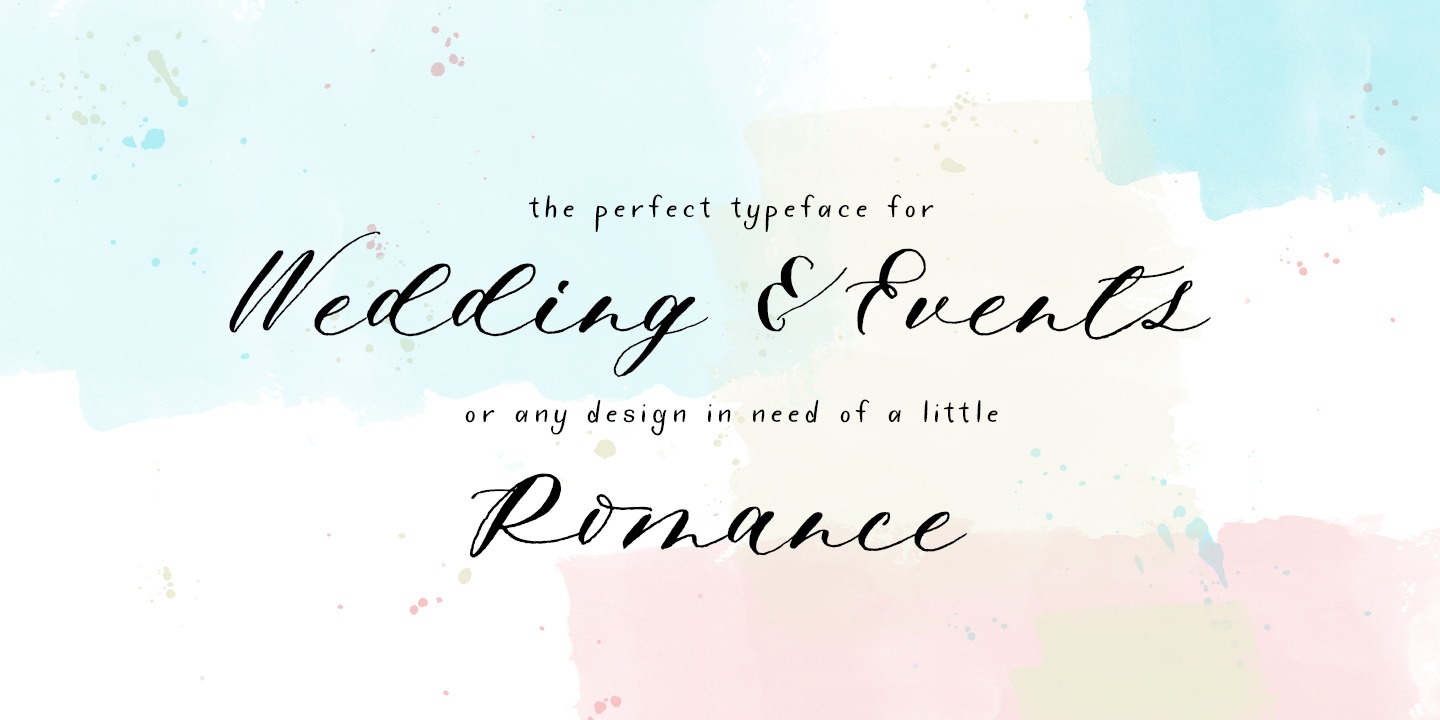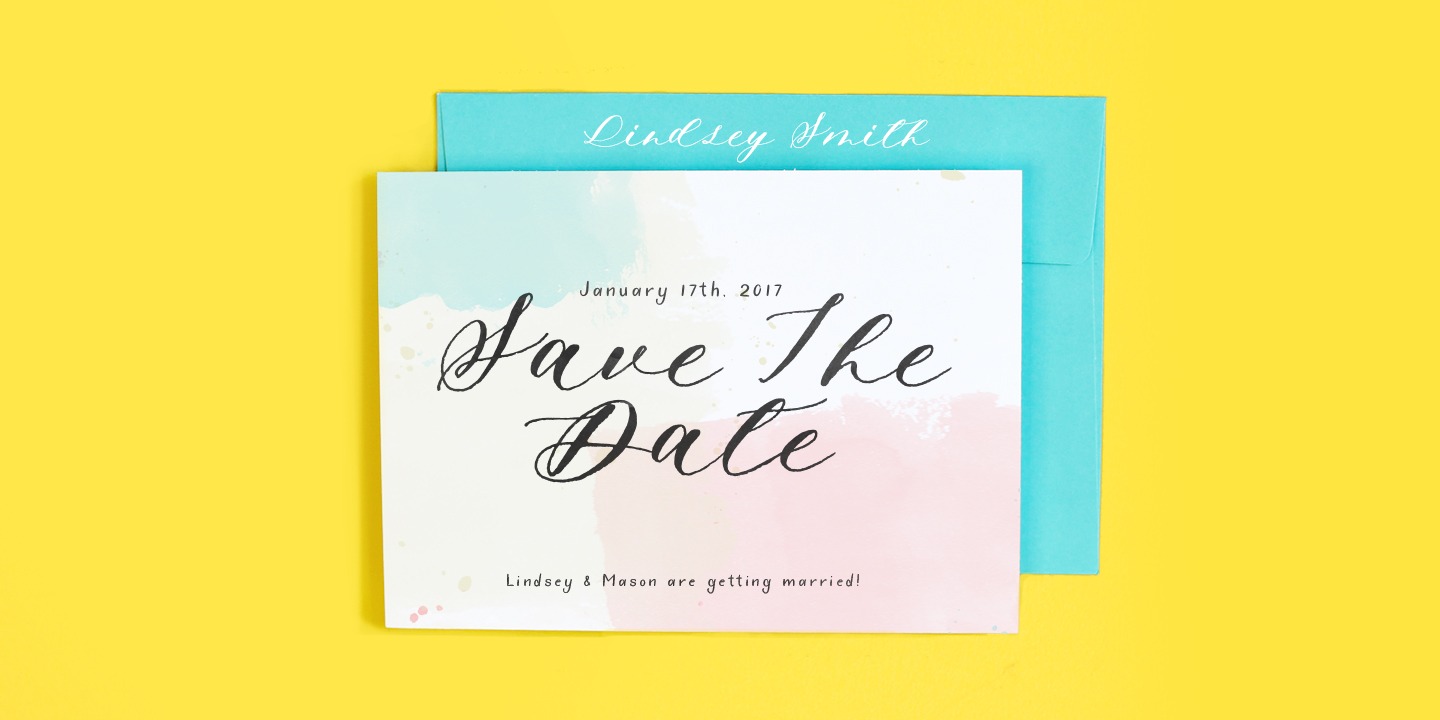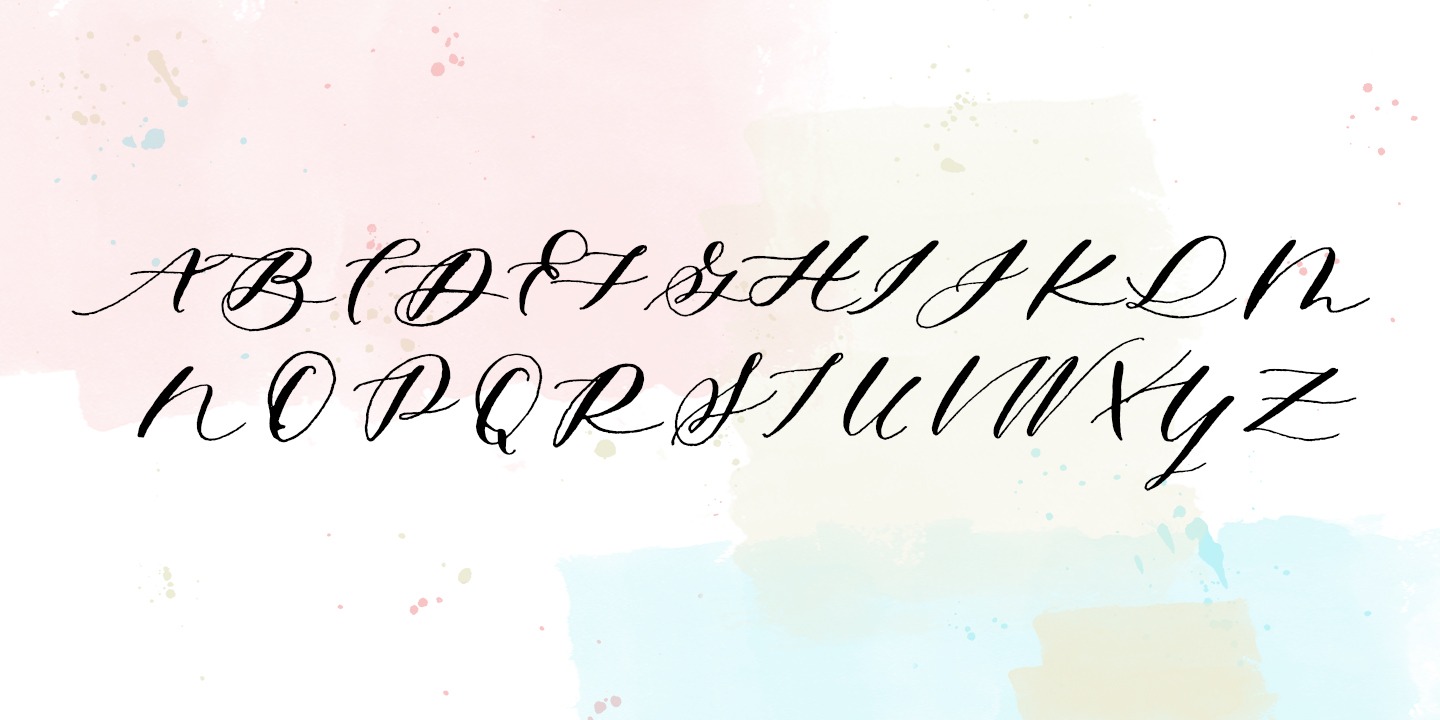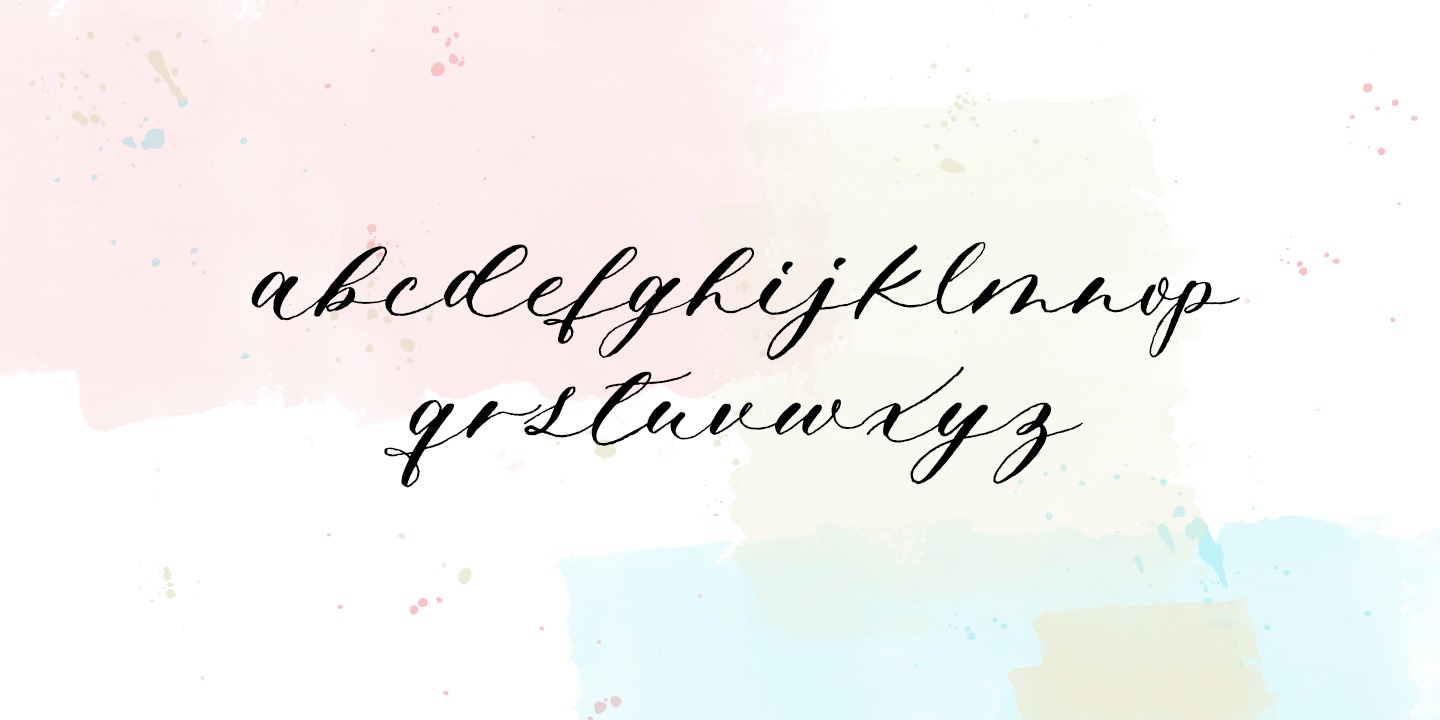
Mon Voir
Font Family by Great Lakes Lettering
Mon Voir is the signature lettering style from Jenna Rainey a talented calligrapher and illustrator and the artist behind Mon Voir studio.